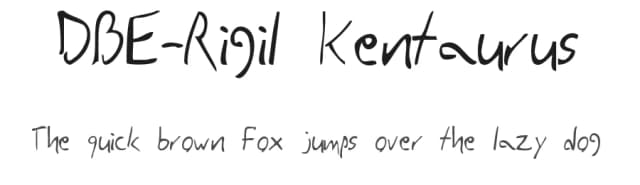
About DBE Rigel Font
DBE Rigel is a script & handwritten font designed by Dave Panfili. It includes 97 glyphs, a regular weight, OTF (CFF) format, and 104 languages. DBE Rigel is free to download; check the license details on this page before commercial use. Script & handwritten fonts like DBE Rigel work best for wedding invitations, greeting cards, signatures, and elegant branding.
DBE Rigel Font is a script font that shines as a display or heading face. Pair it with a clean sans-serif or serif font for body text β the contrast creates a clear hierarchy while the two styles stay balanced and easy to read.
DBE Rigel Font
by Dave Panfili
DBE Rigel Font is a script handwritten typeface by Dave Panfili, ideal for logos, invitations, branding, and creative projects.